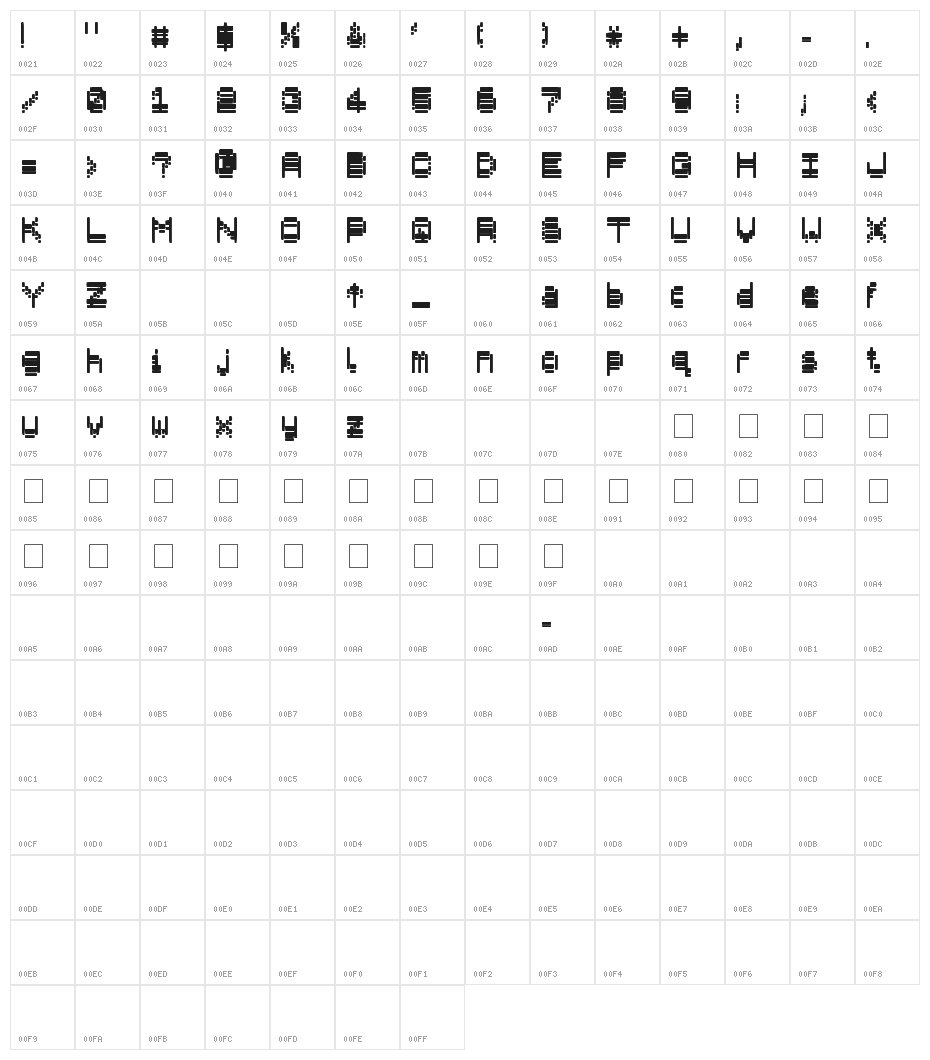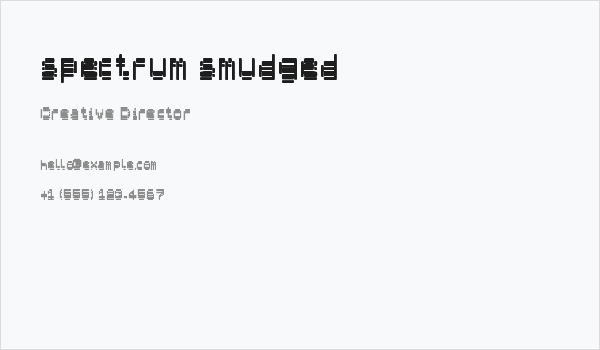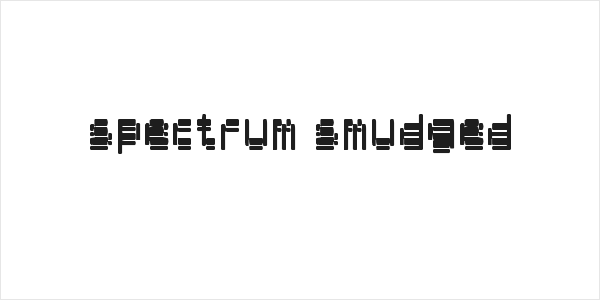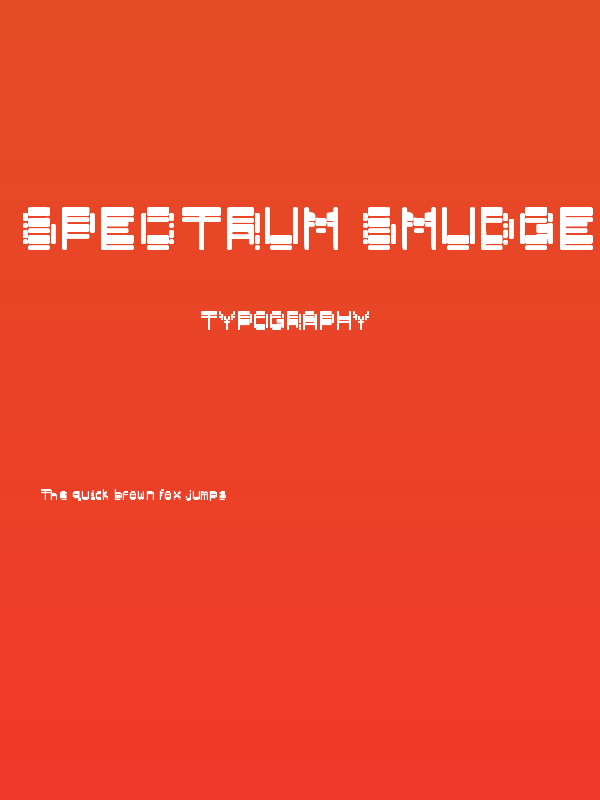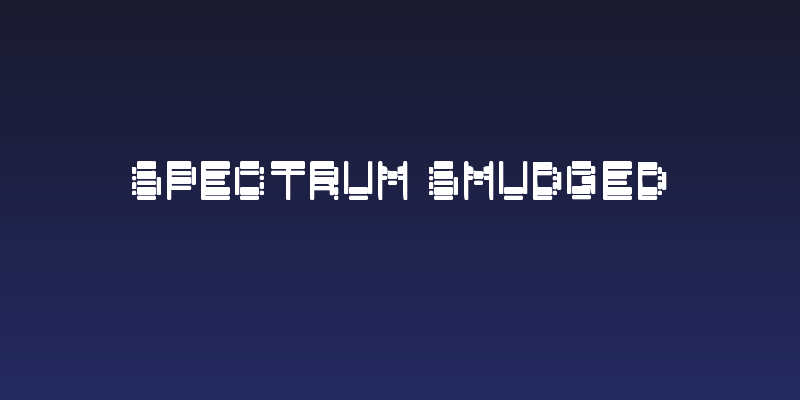
spectrum smudged Font
spectrum smudged Description
This font features a bold, futuristic design with a pixelated, block-like structure. Each character is composed of a series of horizontal and vertical lines that create a digital, tech-inspired aesthetic. The uppercase and lowercase letters maintain a consistent style, with rounded edges and uniform line thickness. Numbers and special characters follow the same design principles, ensuring a cohesive look across all glyphs. The font's unique appearance makes it stand out, ideal for projects that require a modern and edgy feel.
| Proposed Projects | Ideal for digital art, video game graphics, tech branding, and futuristic-themed posters. |